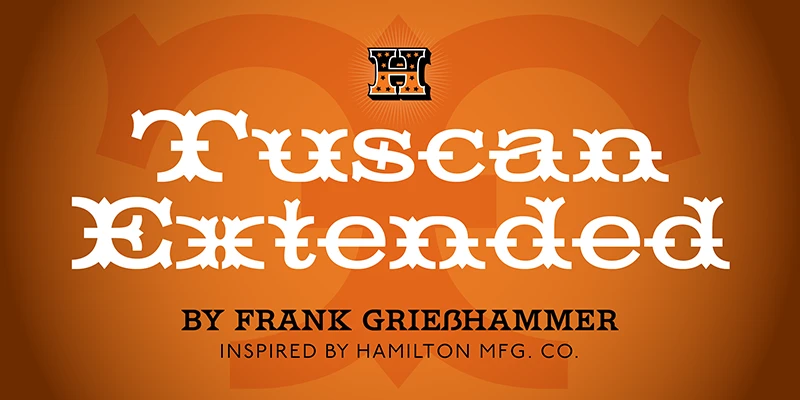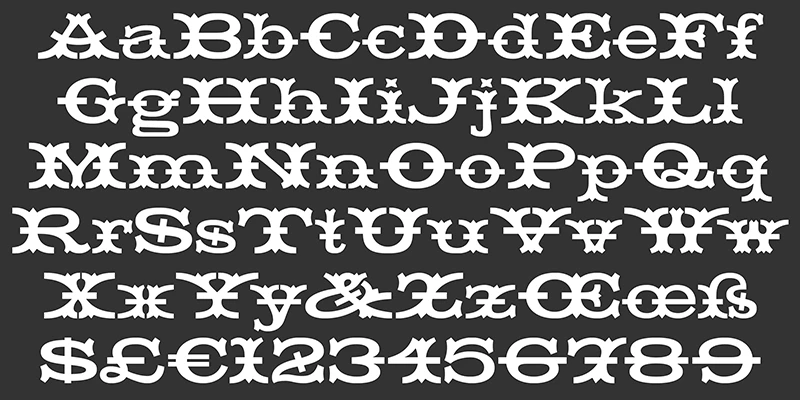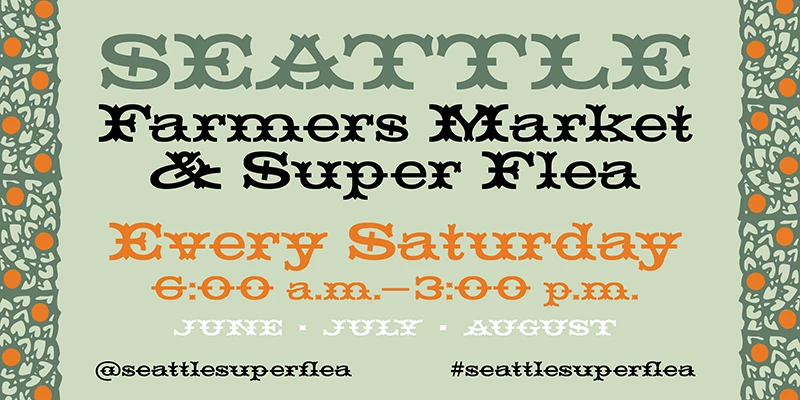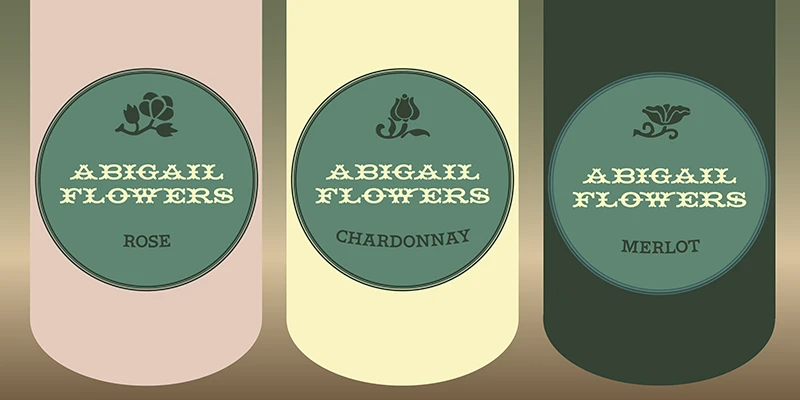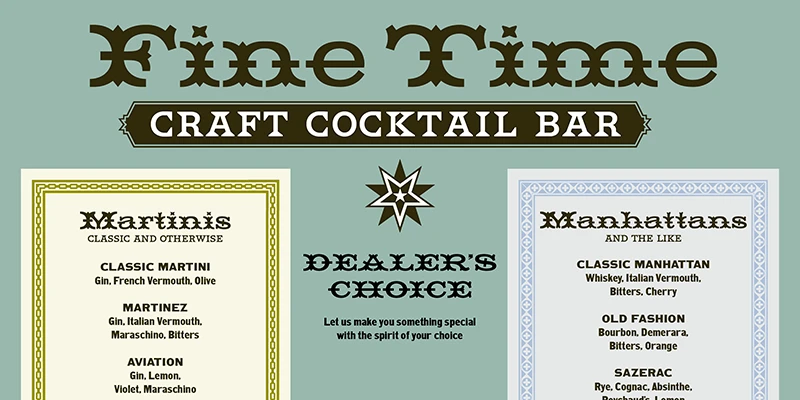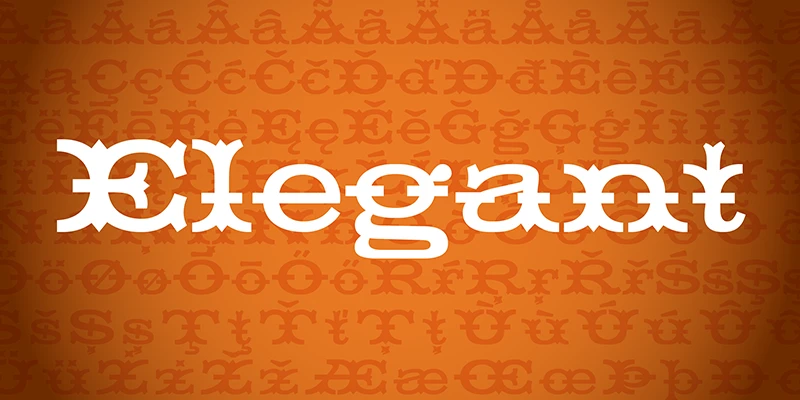
Tuscan Extended
From Hamilton Wood Type Collection
HWT Tuscan Extended is an exercise in exuberance: bifurcated terminals, stem spikes, crossbars, and that ampersand… oh my! There are some relatively simple letters (o, c, s), but ornamentation is otherwise omnipresent, especially in the w, x, and z. At least four different versions of this 19th-century typeface were made, so designer Frank Grießhammer had a lot of material to work with as he expanded the character set so Tuscan Extended would function in a modern, multi-lingual world.
Designed by Frank Grießhammer